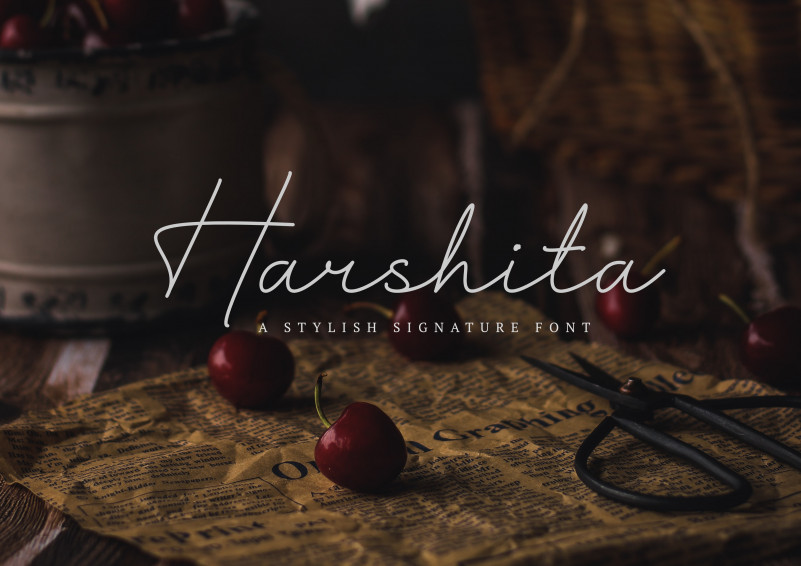
Harshita Handwritten Font
It’s a modern chic script font created by novan esthi with aesthetic touch. It looks beautiful on a variety of designs requiring a personalized style, such as wedding invitations, thank you cards, weddings, greeting cards, logos and so on.